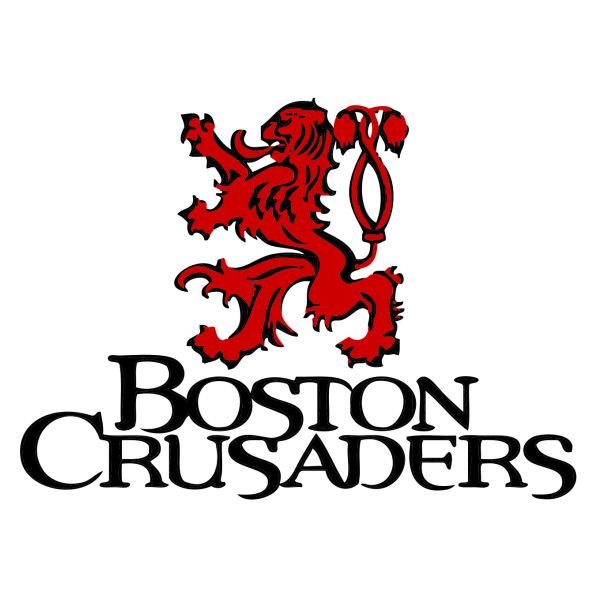
Boston Crusaders Font
EntertainmentBoston Crusaders Drum and Bugle Corps is a non-profit youth organization based in Boston, Massachusetts. It provides young musicians with an opportunity to perform and develop their skills through the marching arts.
The Boston Crusader's logo is most likely set in a stylish serif font called Percolator Expert, which was created by Adam Roe. You can learn more about the font here.